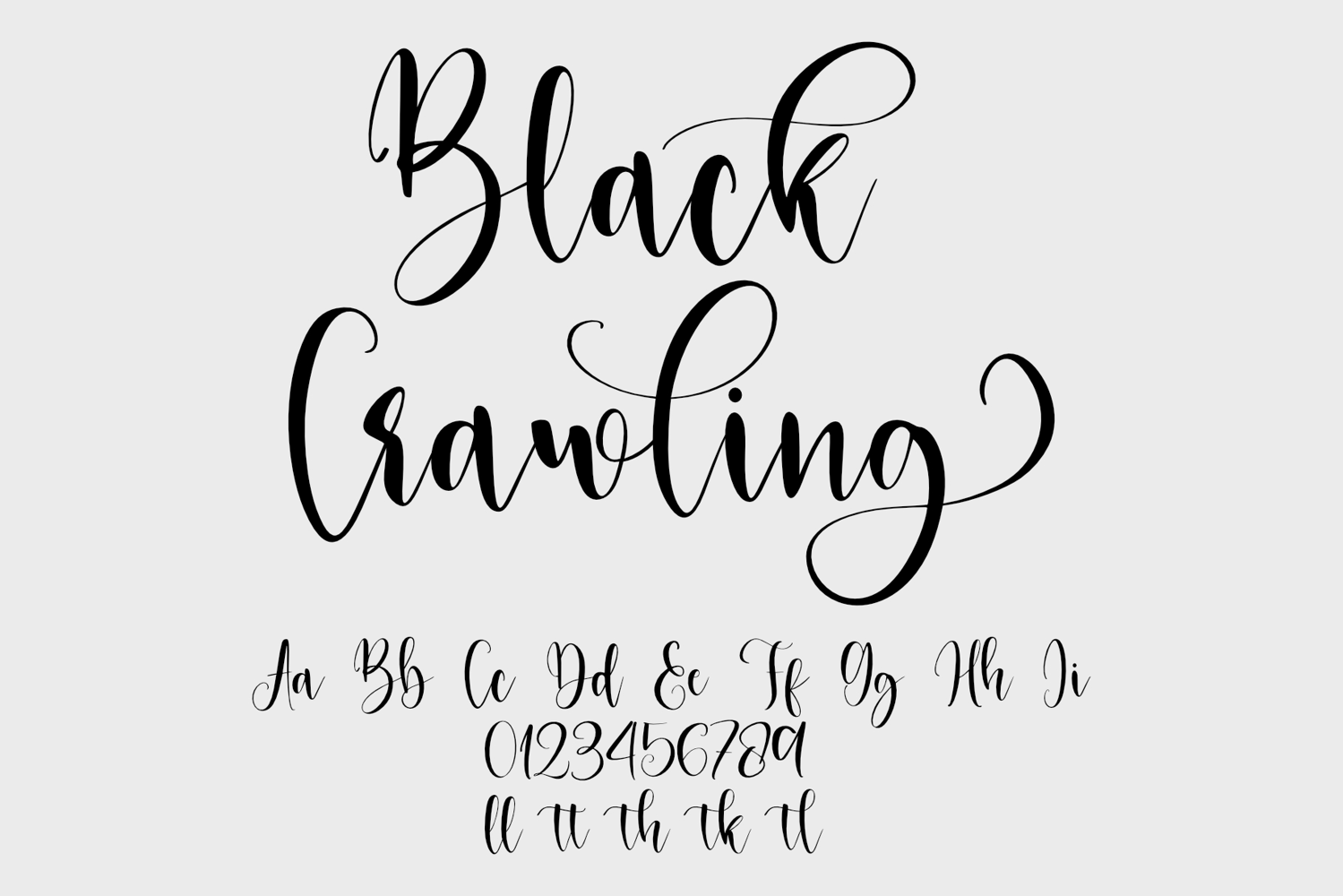
Black Crawling
Black Crawling is a premium script font with a sleek and modern design. Its unique style features elegant and flowing letterforms, perfect for adding a touch of sophistication to any project. Ideal for logos, branding, invitations, and more.